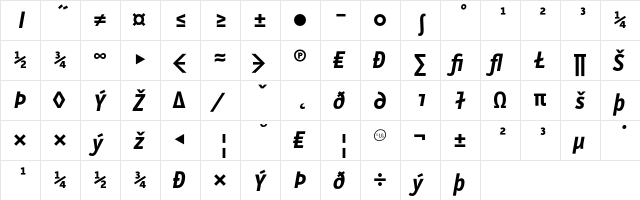
LetterGothicMono BoldItalicExp Font Preview
Design Context for LetterGothicMono Typeface
LetterGothicMono uses fixed-width spacing throughout, giving it the structured, systematic character associated with coding environments and technical documentation. Its italic angle brings a sense of urgency and motion to the letterforms. The heavy weight commands attention and anchors typographic hierarchies.